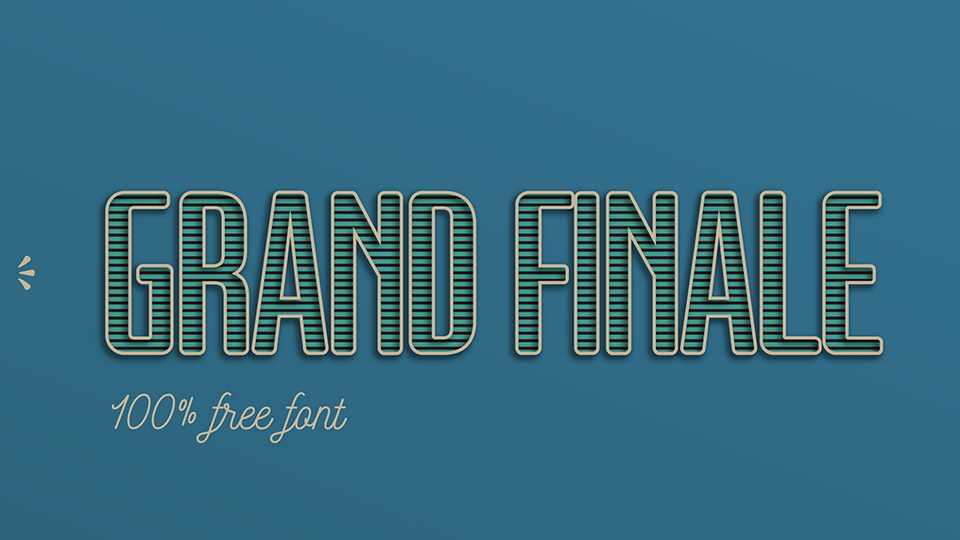
Grand Finale is a simple, clean and functional condensed sans serif font with rounded terminals. It suits for logo designs, badges and signs, headlines and text blocks, quotes and much more.